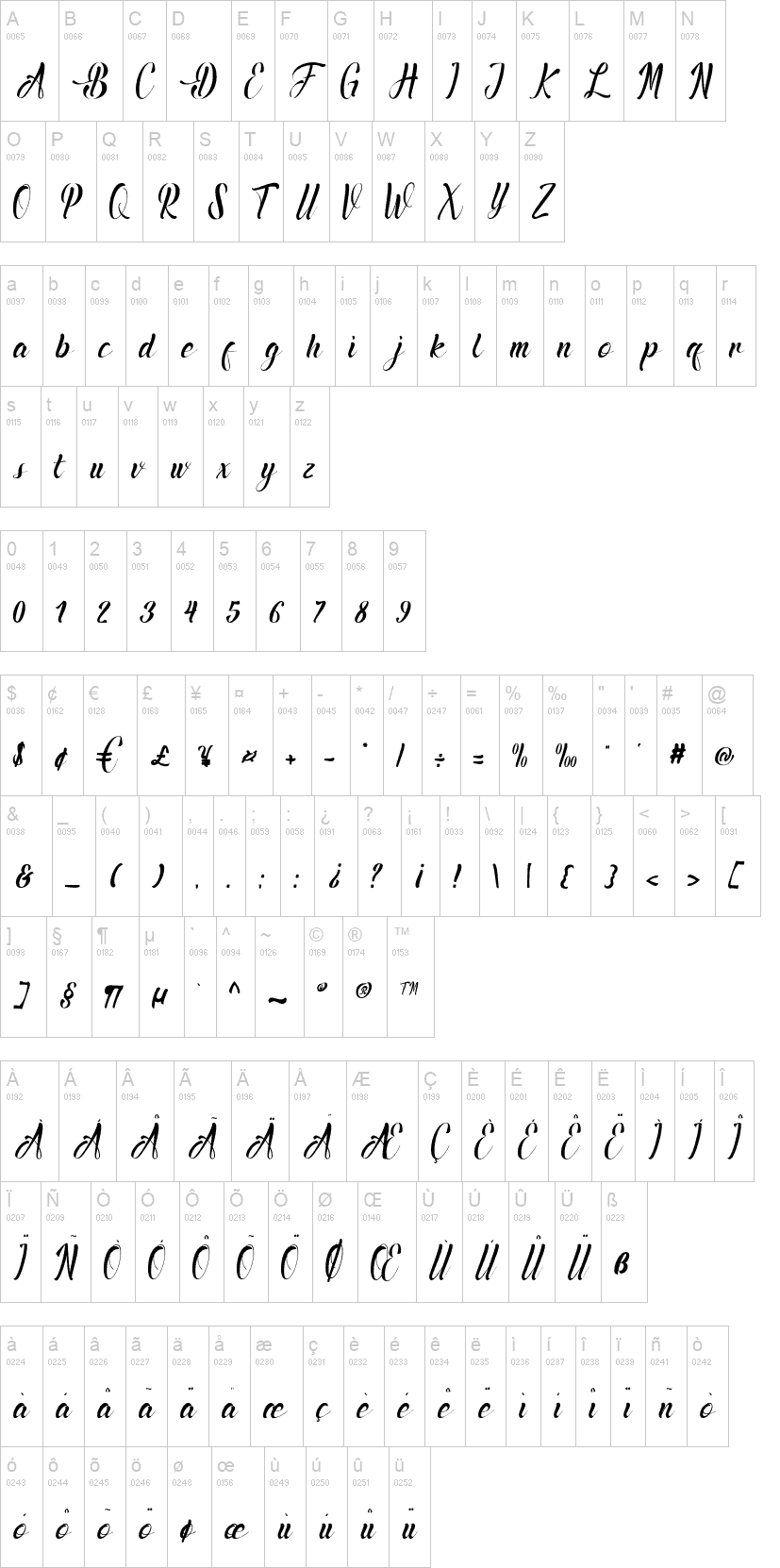
Amadigi is an elegant and modern script font with minimalistic design is perfect for calligraphy purposes because of its casual look that on the same time makes it easy to read – which makes it very versatile. Valentine is gorgeous whether used alongside other headlines or on its own, Valentine is gorgeous!